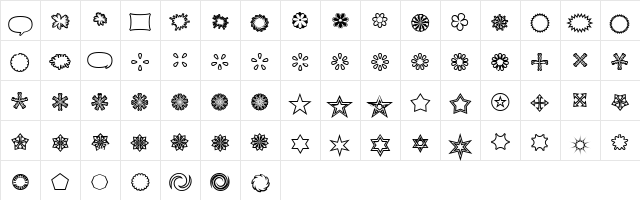
Asterisp Zeta Regular
Design Context for Asterisp Zeta
Asterisp Zeta is a composed and adaptable typeface that performs quietly and consistently across a wide range of design contexts.